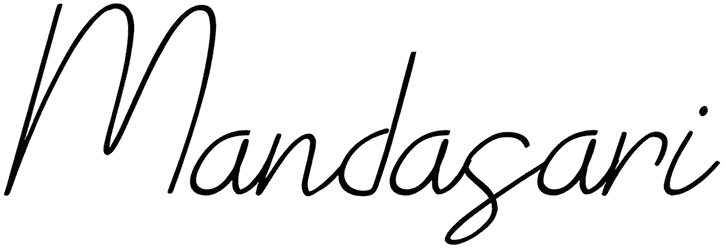
Mandasari Font
Do you need a personality for your content? Well, Mandasari, as a handwritten font with a friendly vibe, is here to help you out in designing upcoming graphical displays. Its delicate lines and natural style give this font an exceptional look.